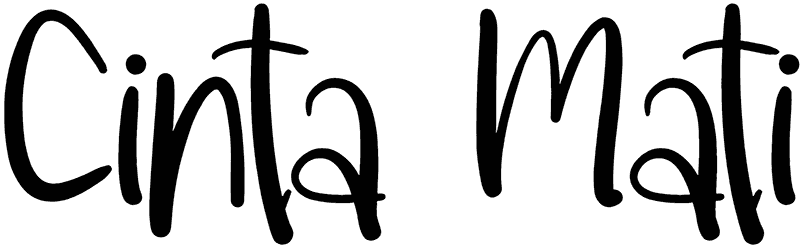
Cinta Mati Font
If you are ready to say goodbye to your simple words, we offer you this cute and natural handwritten font that is capable of adorning them in a ravishing way. The Cinta Mati font has two versions, and you can use it to g…
If you are ready to say goodbye to your simple words, we offer you this cute and natural handwritten font that is capable of adorning them in a ravishing way. The Cinta Mati font has two versions, and you can use it to give a fun mood to your project. Put this playful font on your school poster and amaze your viewers.